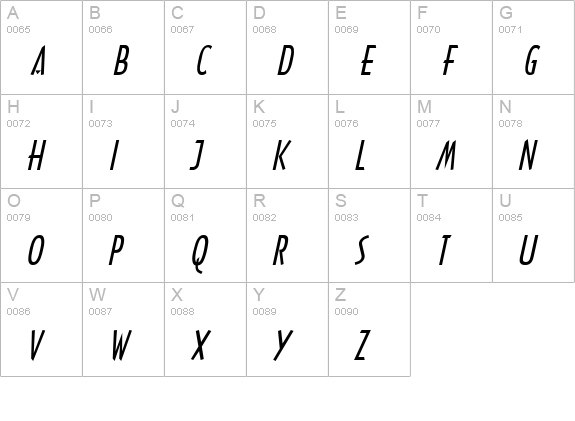
Tech Italic is a distinctive, italic variant in the Tech typeface family \xE2\x80\x94 well suited to design and typography projects.
Introducing Tech Italic, a sleek and modern font designed to elevate any tech-related project. With its clean lines and carefully crafted curves, Tech Italic exudes a sense of sophistication and professionalism that is perfect for digital designs, websites, and branding materials. This font's unique italicized style adds a touch of elegance and contemporary flair, making it an ideal choice for those looking to make a bold statement with their typography. Whether you're designing a cutting-edge tech startup logo, creating eye-catching social media graphics, or developing a sleek website interface, Tech Italic will effortlessly enhance your work and captivate your audience. What makes Tech Italic even more impressive is its availability as a free download exclusively at FontsMarket.com. We believe that everyone should have access to high-quality fonts without breaking the bank, and that's why we're thrilled to offer Tech Italic completely free of charge. Now, you can add this exceptional font to your collection and take your designs to the next level without spending a dime. Don't miss out on this incredible opportunity to elevate your tech-inspired creations with Tech Italic. Download it for free at FontsMarket.com and unleash your creativity today. Experience the power of this remarkable font and let it transform your designs into works of art.